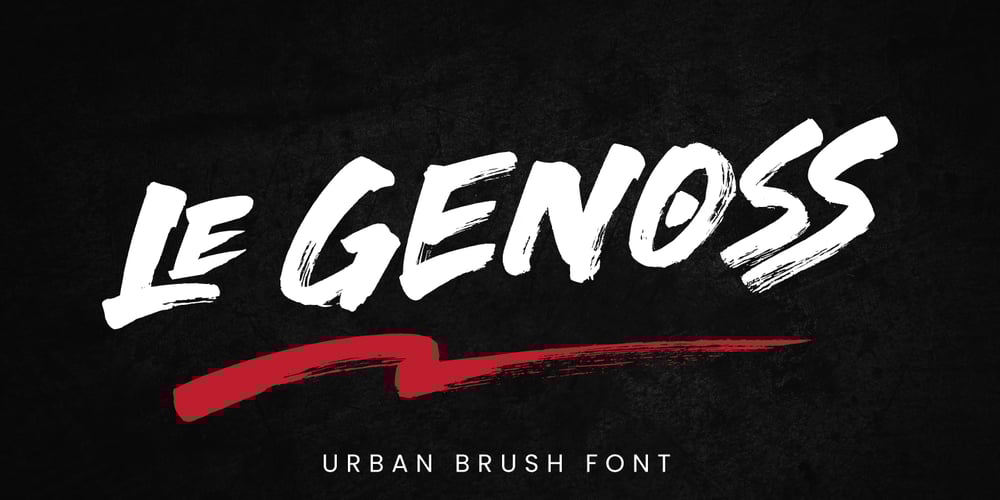
LE Genoss Font Family was designed by Fadli Ramadhan Iskandar and published by Attype Studio. LE Genoss contains 1 styles and family package options. le Genoss is urban brush font inspired by real brush calligraphy with real texture. What’s included:- le Genoss.otf- 10 Swashes- Ligatures- Multilingual Support—Hope you enjoy with our font!Attype Studio